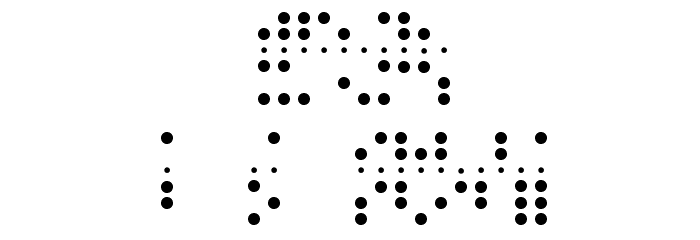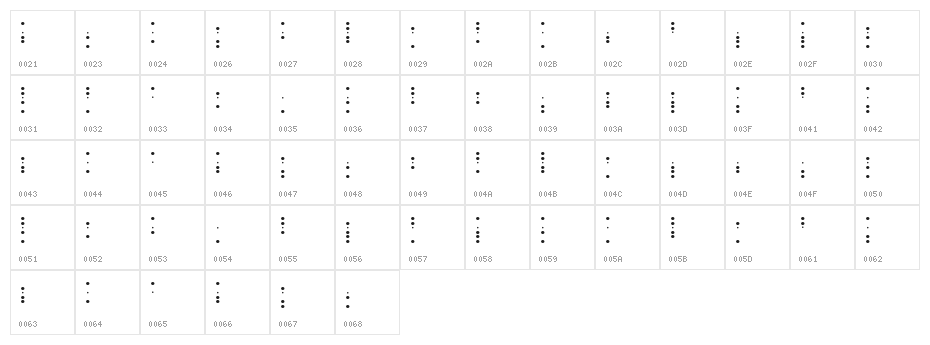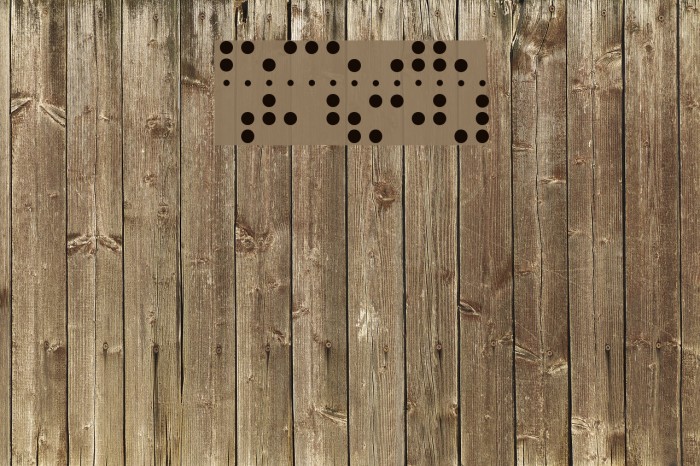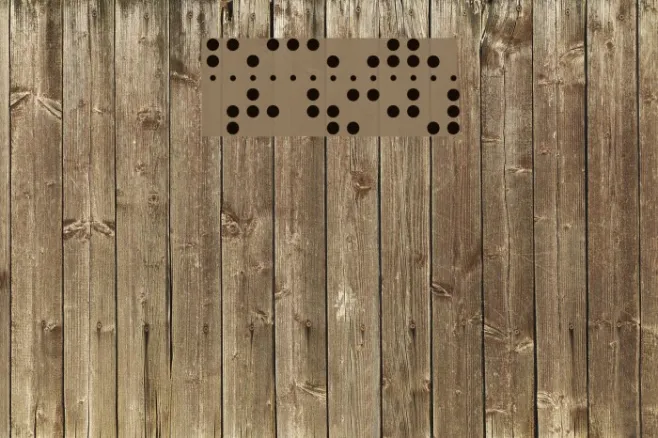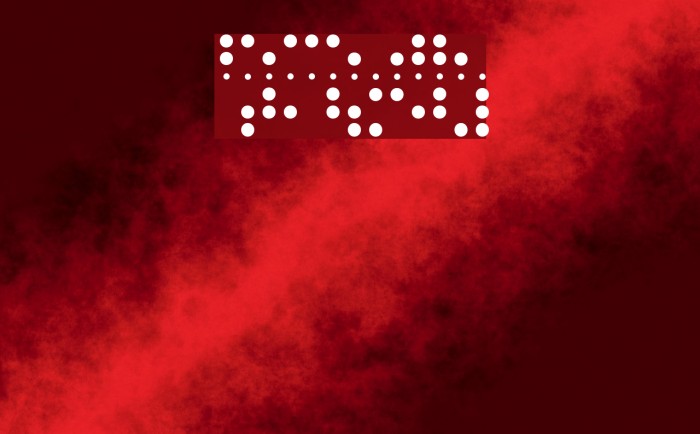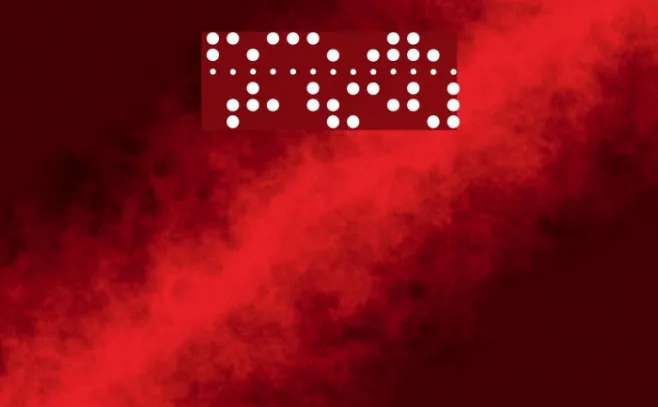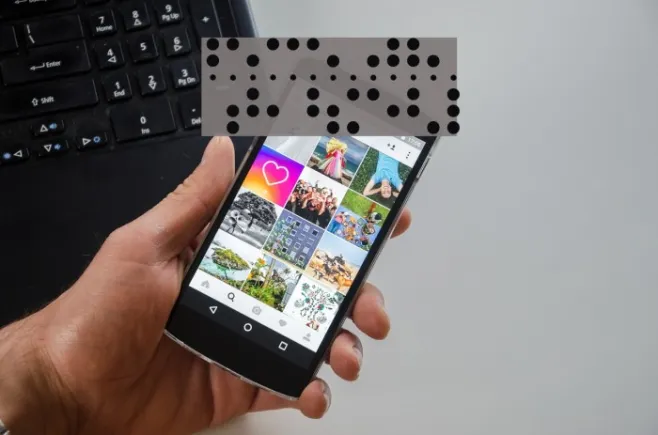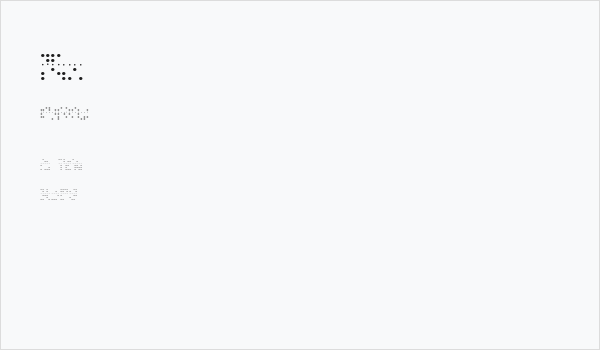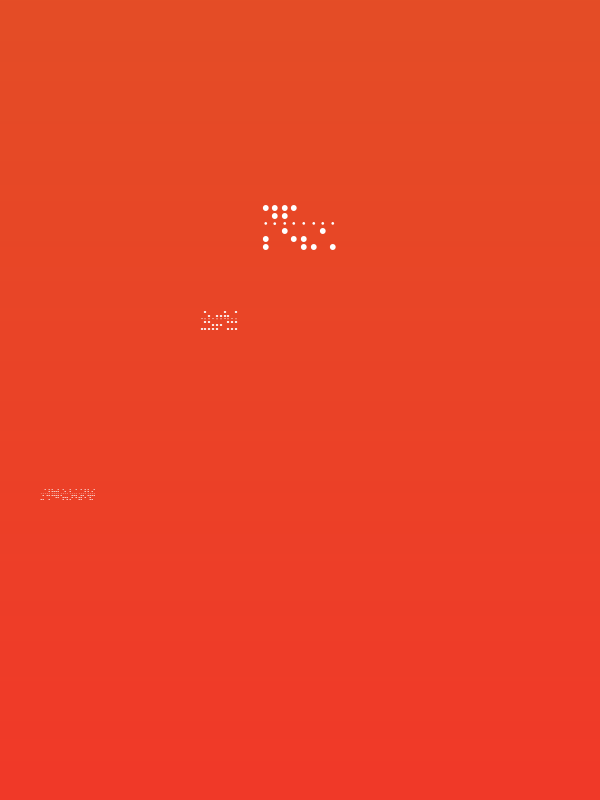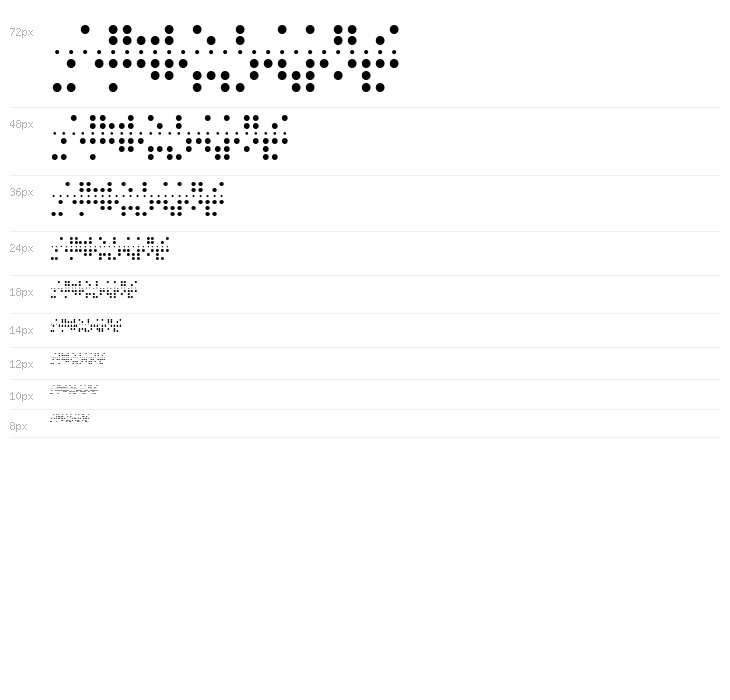
This image represents a series of dot patterns used in telegraphy, specifically the Baudot code, which is a character set predating ASCII. It consists of five bits per character, allowing for a limited set of characters. The arrangement of dots in this image is not a traditional font but rather a code used for communication in early telegraph systems. Each character is represented by a unique combination of dots, making it distinct from typical typographic fonts.
| Overall Style | Historic, Technical |
| Use Case | Educational displays, Historical exhibits |
| Proposed Projects | Ideal for projects exploring historical communication methods, telegraphy simulations, or educational tools about early digital encoding. |